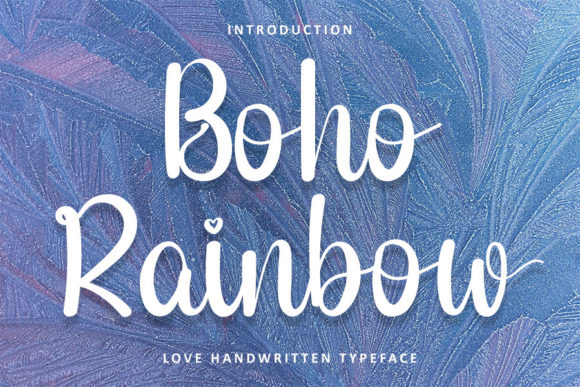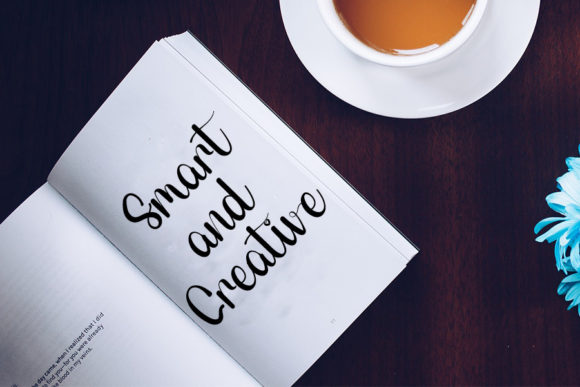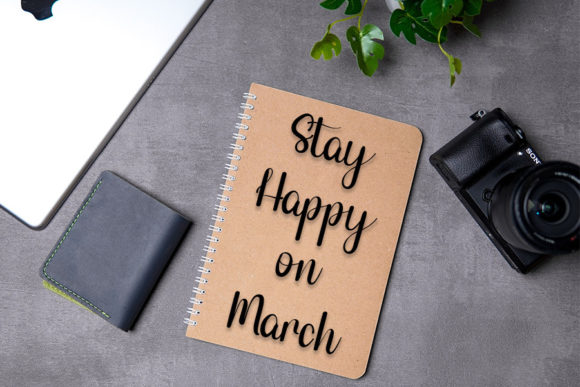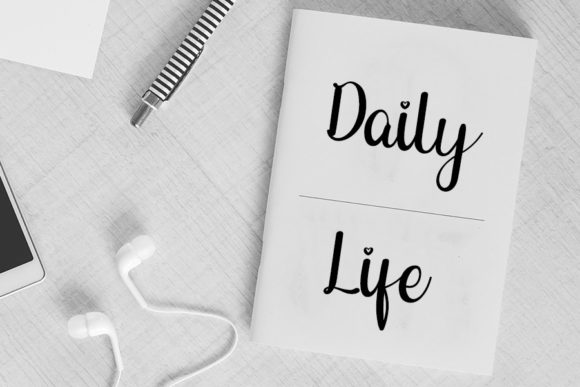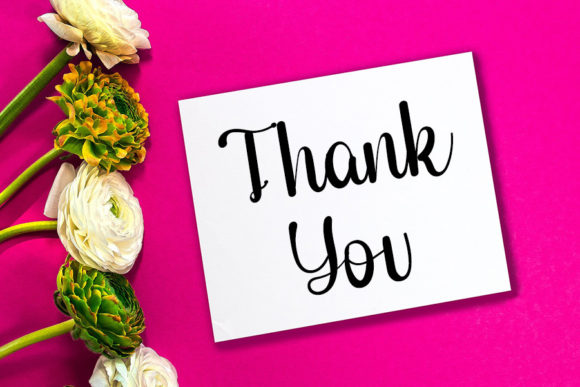
About Boho Rainbow Font
Boho Rainbow is a stylish and bold handwritten font with a contemporary atmosphere and impeccable form, inspired by a timeless classic calligraphy. It will look outstanding in a wide range of contexts.